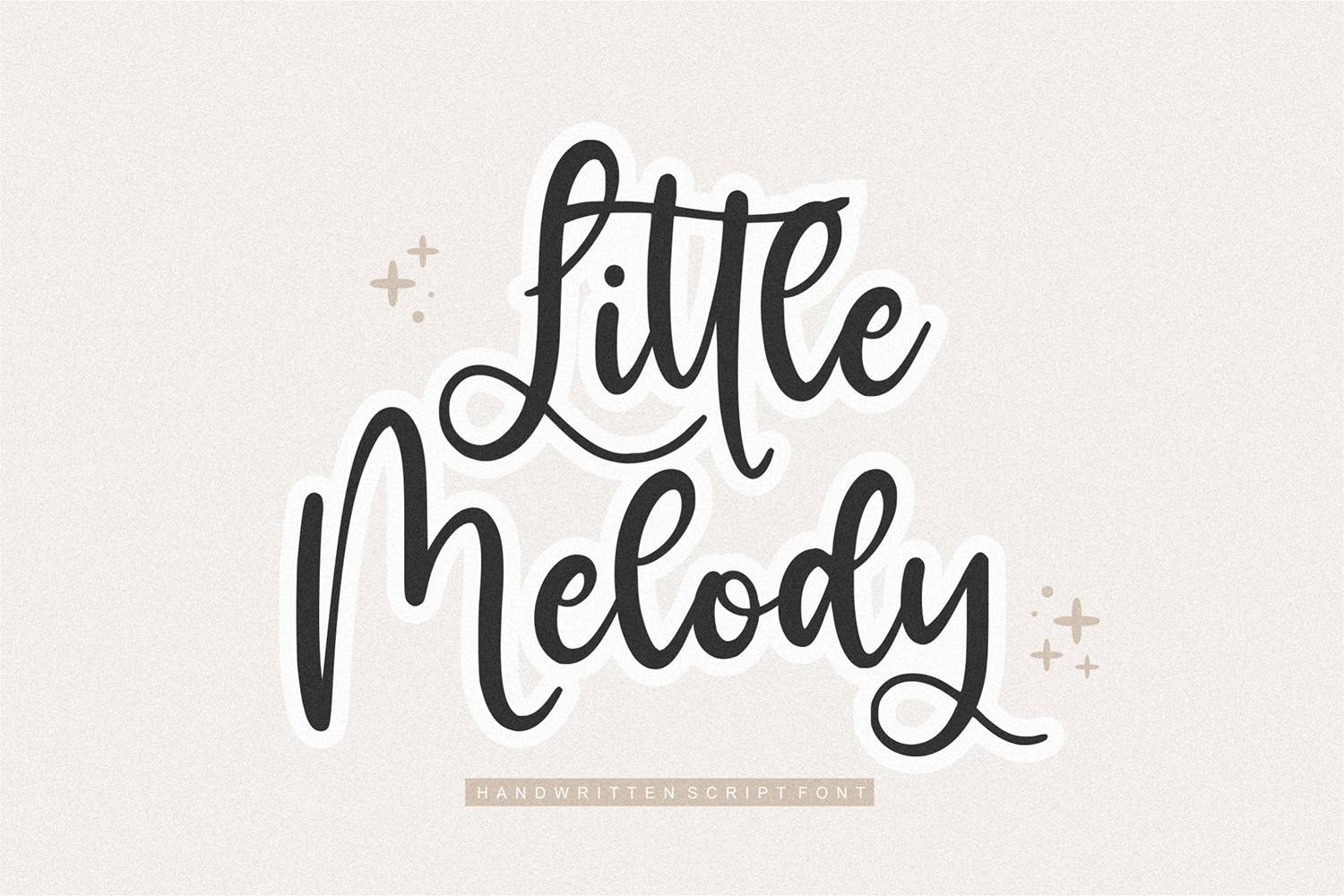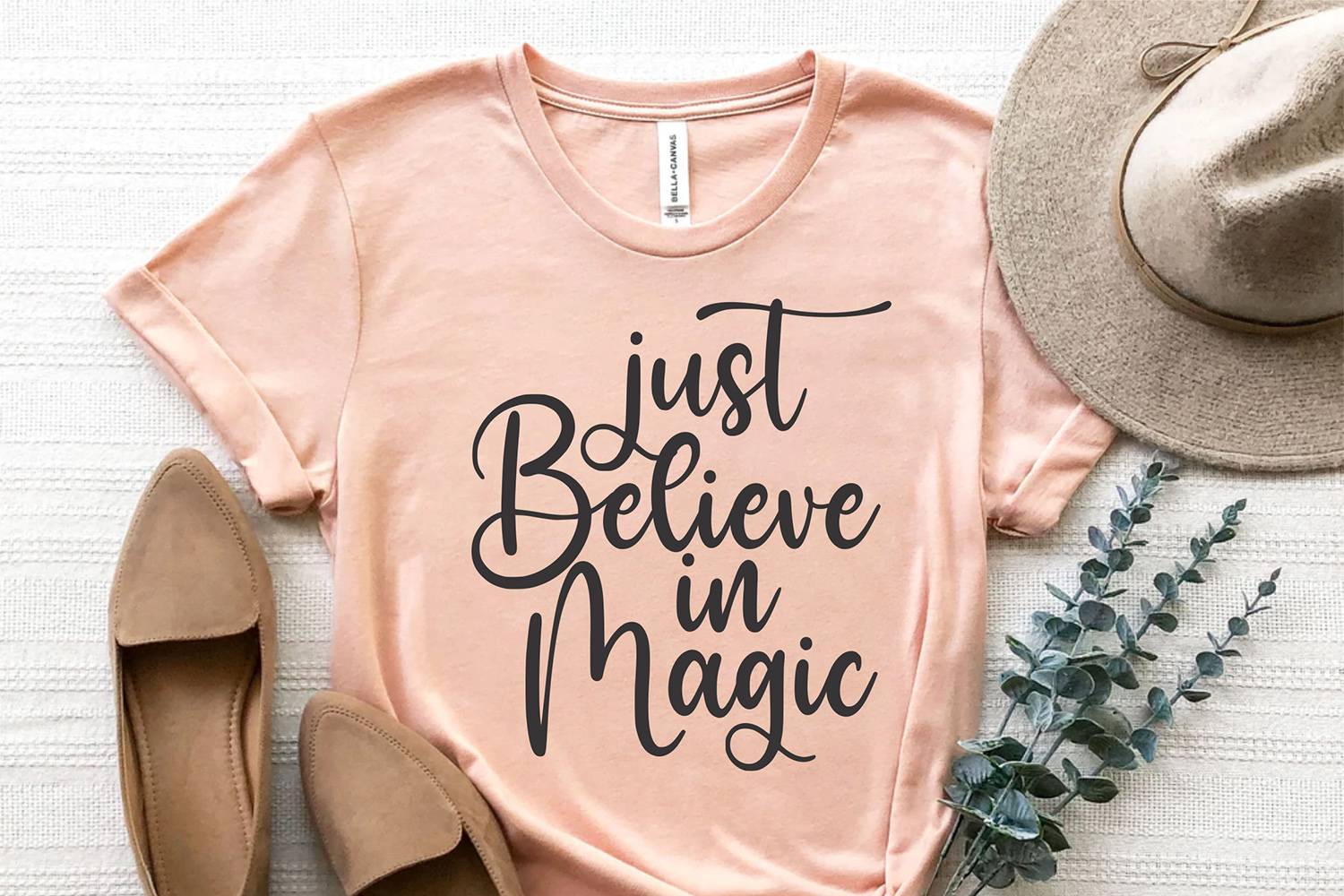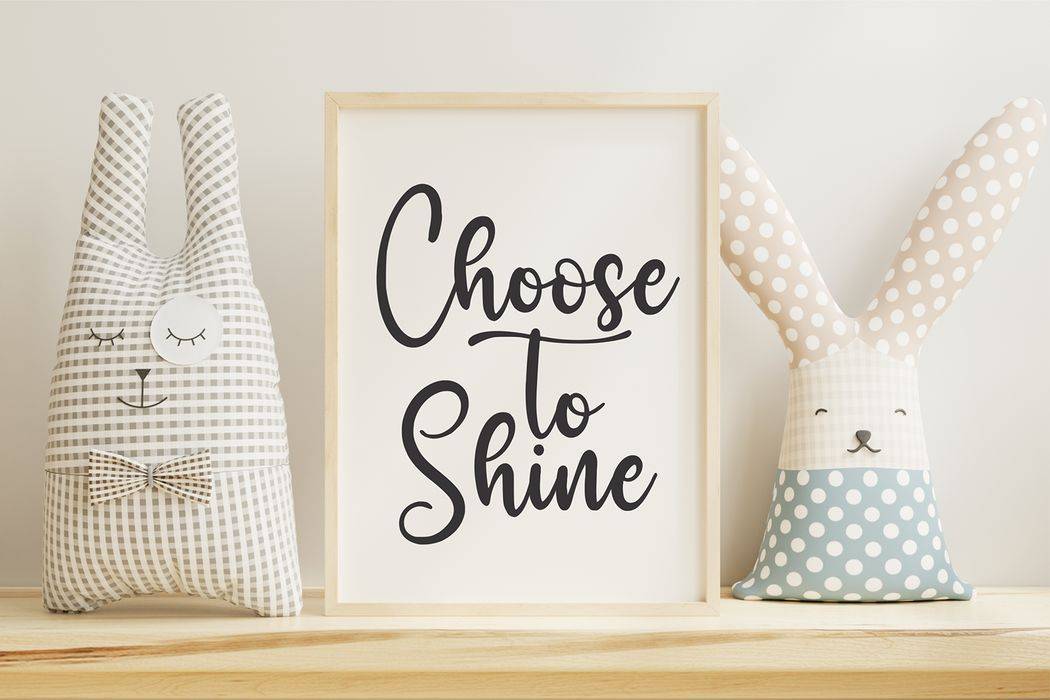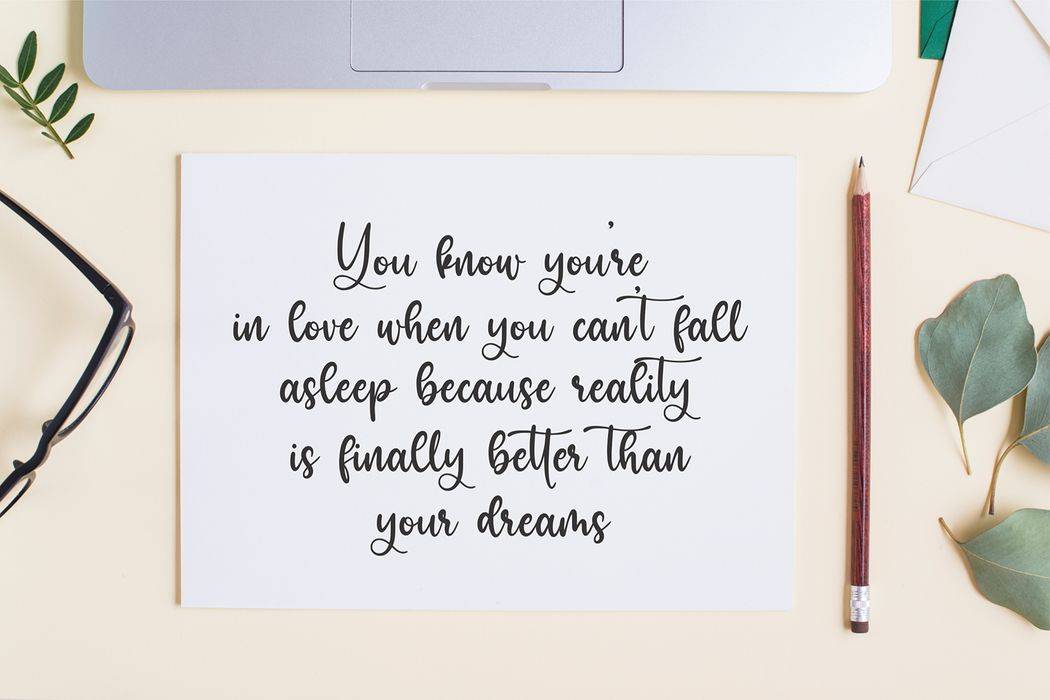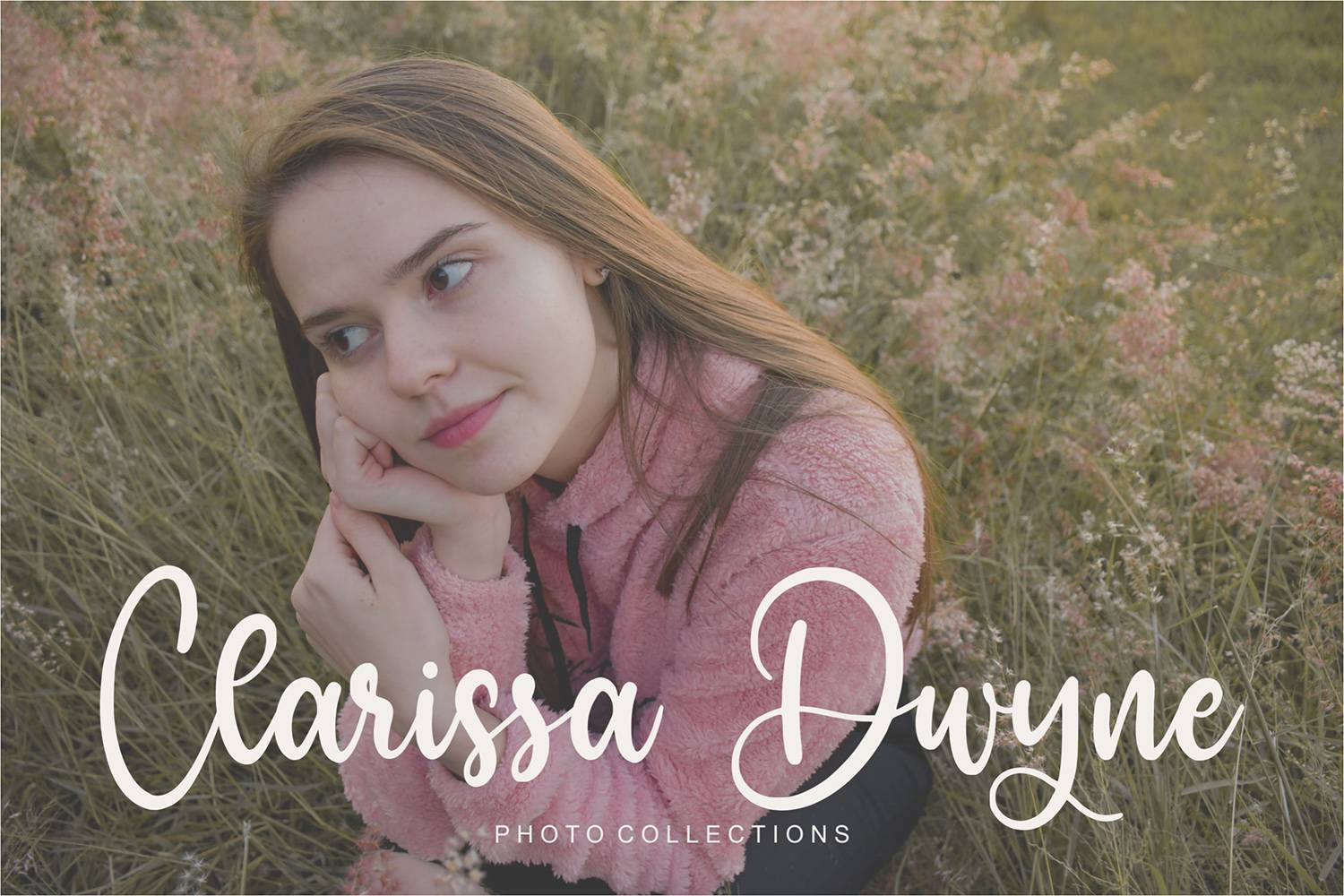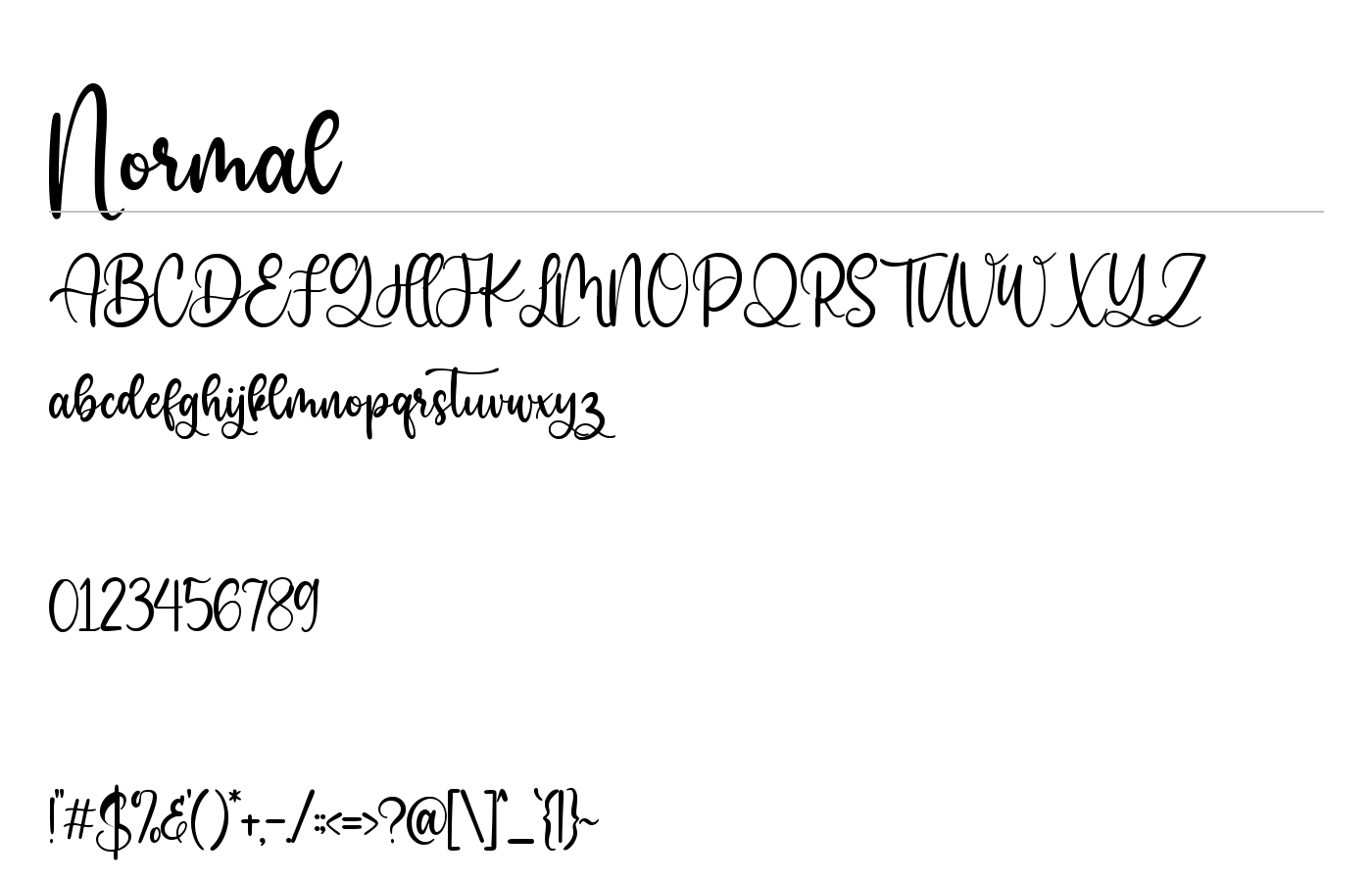
Little Melody is a charming script font with a delicate, hand-drawn feel that combines elegance with playful curves. Its slender, flowing letterforms and smooth connections create a warm and inviting personality, making it ideal for feminine branding, invitations, and creative projects that seek a personal touch. This font's graceful style works beautifully for headlines, logos, and decorative text where a soft, friendly atmosphere is desired.
Little Melody Font
About Little Melody Font
| Font family | Little Melody Font |